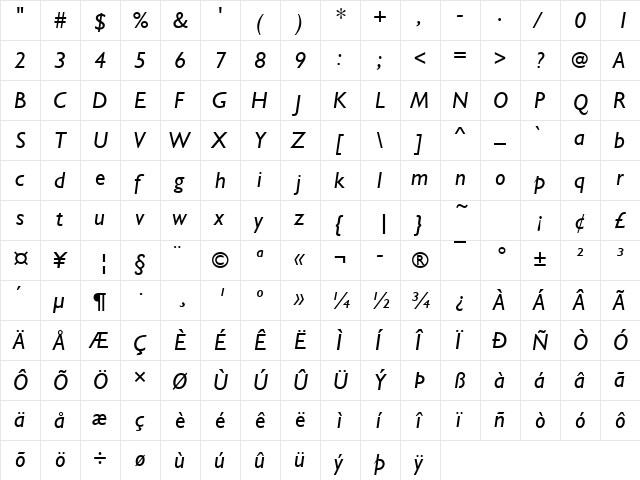
URWGalaxieNo2T Italic
Design Context for URWGalaxieNo2T Typeface
URWGalaxieNo2T is a composed and adaptable typeface that performs quietly and consistently across a wide range of design contexts. The dynamic lean of this cut emphasises speed and emphasis in any layout.
Pro Tip: Use URWGalaxieNo2T for emphasis, pull quotes, and subheadings where its slanted energy can add rhythm to the layout.